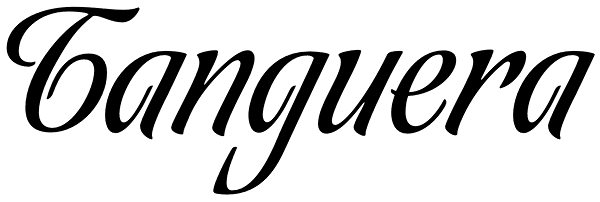
Tanguera
While Bellas Artes, Koziupa and Paul's "other" look at intertwined classicism in calligraphy, can be compared to the repeated patterns of standardized dance steps, Tanguera is more like dancers engaged in a free form of the classic Argentine dance...